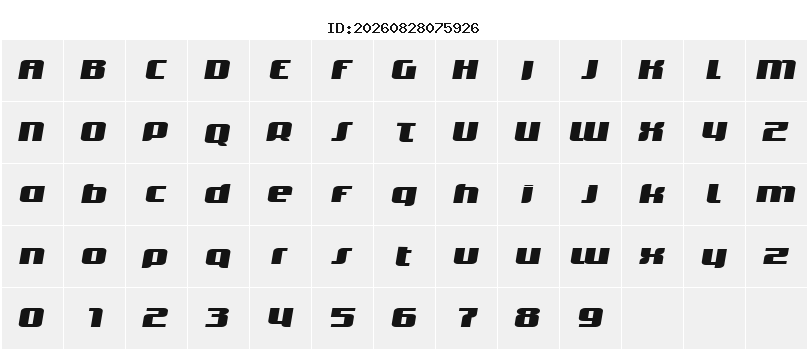
• Font Name: TransOblique
• Full Font Name: TransOblique
About TransOblique.ttf
TransOblique.ttf is a modern, elegant sans-serif font designed for ultimate readability and visual harmony. Perfect for branding, headlines, web design, and print materials.